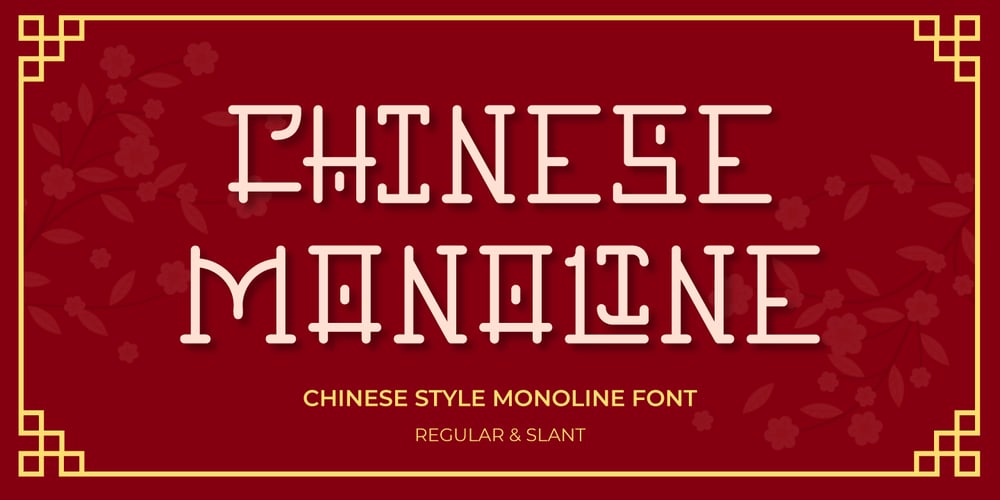
Chinese Monoline Font Family was designed by Fadli Ramadhan Iskandar and published by Attype Studio. Chinese Monoline contains 2 styles and family package options. Chinese Monoline is a Chinese style monoline font, with a modern twist. It has 2 styles: regular and slant.Chinese Monoline is perfect for branding and promotional material for Asian-themed designsThe fonts works best as display typefaces or as beautiful headline fonts, but can also be used in other ways to create stunning designs.Features :- Chinese Monoline Family Font- Ligatures- Multilingual, US Roman, Latin 1 Support